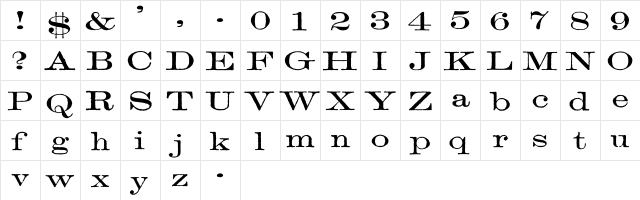
Archive Lightface Extended Regular
Design Context for Archive Lightface Extended Typeface
Archive Lightface Extended is a composed and adaptable typeface that performs quietly and consistently across a wide range of design contexts. The delicate stroke weight brings airiness and refinement to layouts.